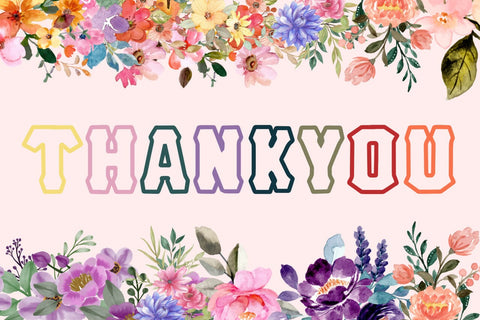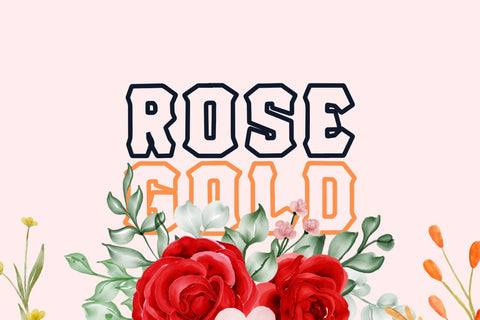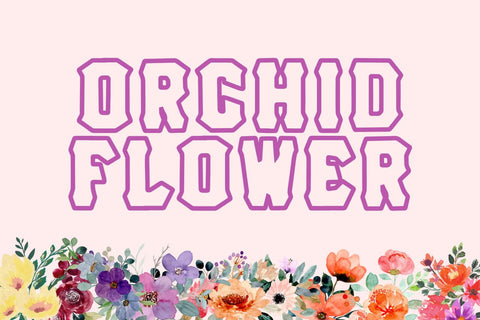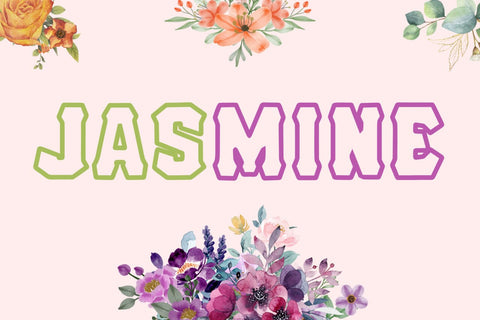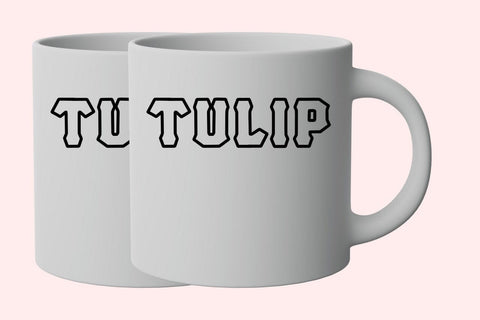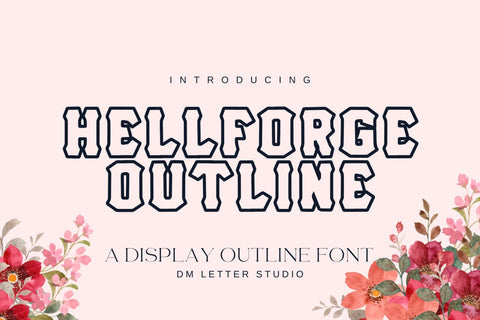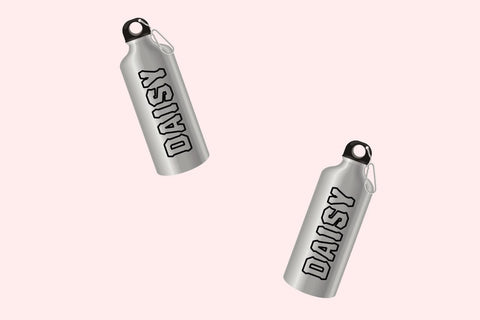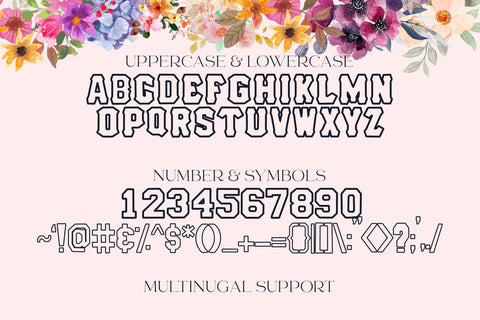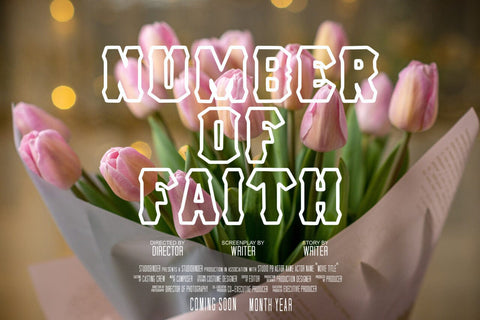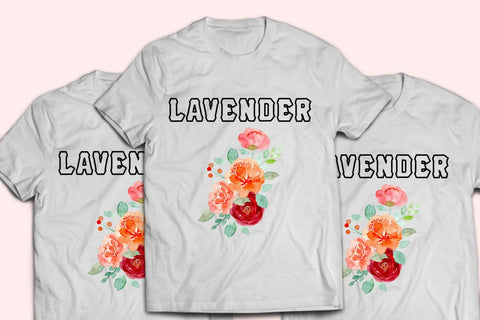
Hell Forge Outline Font
Meet Hell Forge Outline Font
Hell Forge Outline Font brings steel-cut attitude with clean readability. Letters feel heavy yet airy because of the hollow build. Edges stay sharp, so titles hit hard on shirts, posters, patches, and thumbnails. Use it for gaming brands, biker merch, garage logos, metal gigs, and gritty labels. Moreover, this outline style loves glow, gradients, and chrome, so even quick mockups look finished.
Where Hell Forge Outline Font shines
Set short phrases, product names, or team initials. Then add inner shadows, neon rims, or brushed-metal textures for depth. Since spacing is tuned for headlines, you can build covers, banners, and decals in minutes. As a result, launches move faster across apparel, stickers, and social graphics. Plus, the open centers keep designs light on dark fabrics while still looking bold.
Fast setup, forged clarity
Design tips for outline display
Keep copy short and let the stroke thickness lead. Pair big Hell Forge Outline Font headlines with a neutral geometric sans for specs and pricing. Meanwhile, drop a subtle fill behind key words to boost impact on busy photos. Because the shapes are angular, rim light and outer glow add contrast on dark images. However, avoid long sentences in tiny spaces. Names, numbers, and punchy phrases work best.
Select alternates for key letters
Outlines optimized for vinyl, laser, foil, and print
Why creators choose Hell Forge Outline Font
You want a display that looks tough and reads fast. Hell Forge Outline Font delivers. It grabs attention in crowded feeds, scales from icon to banner, and stays clean through production. Consequently, you design more, edit less, and publish collections on schedule.